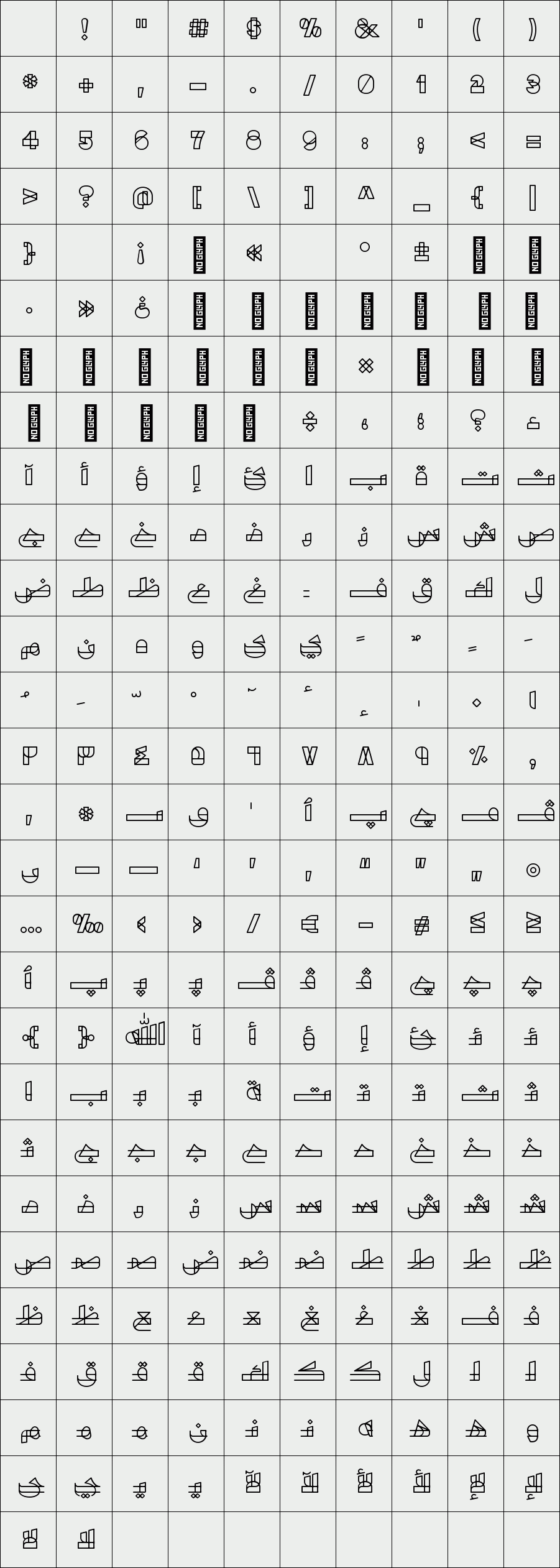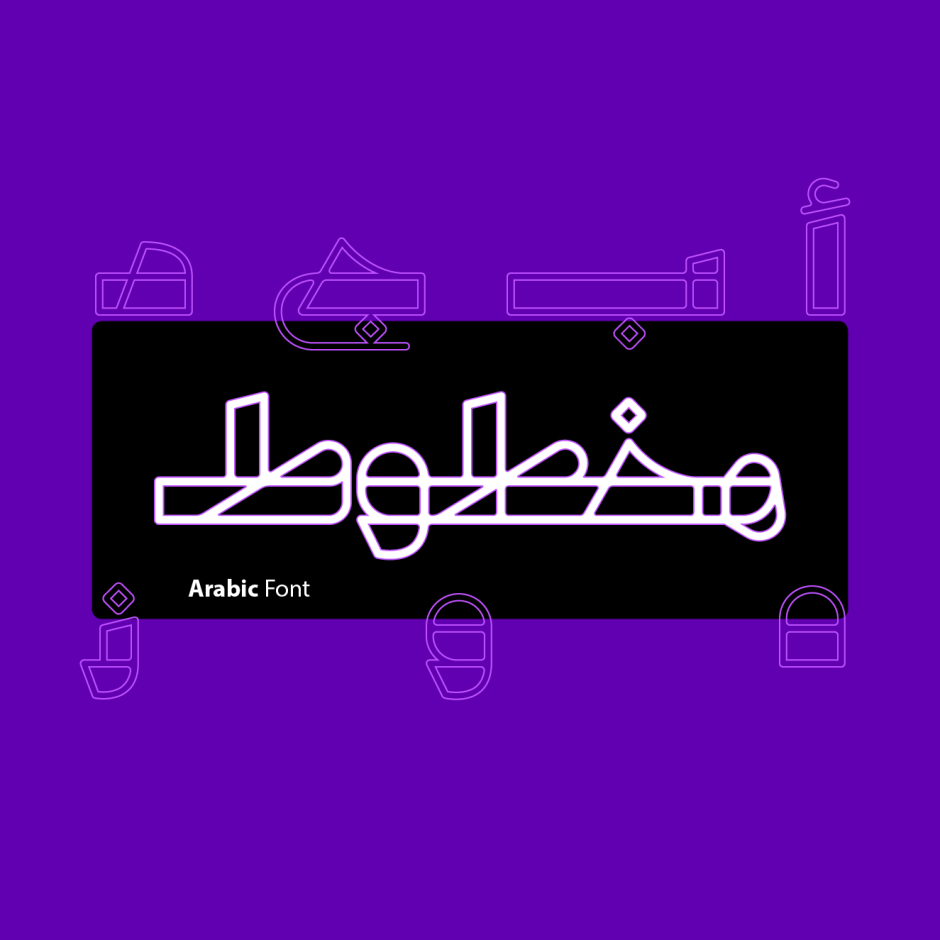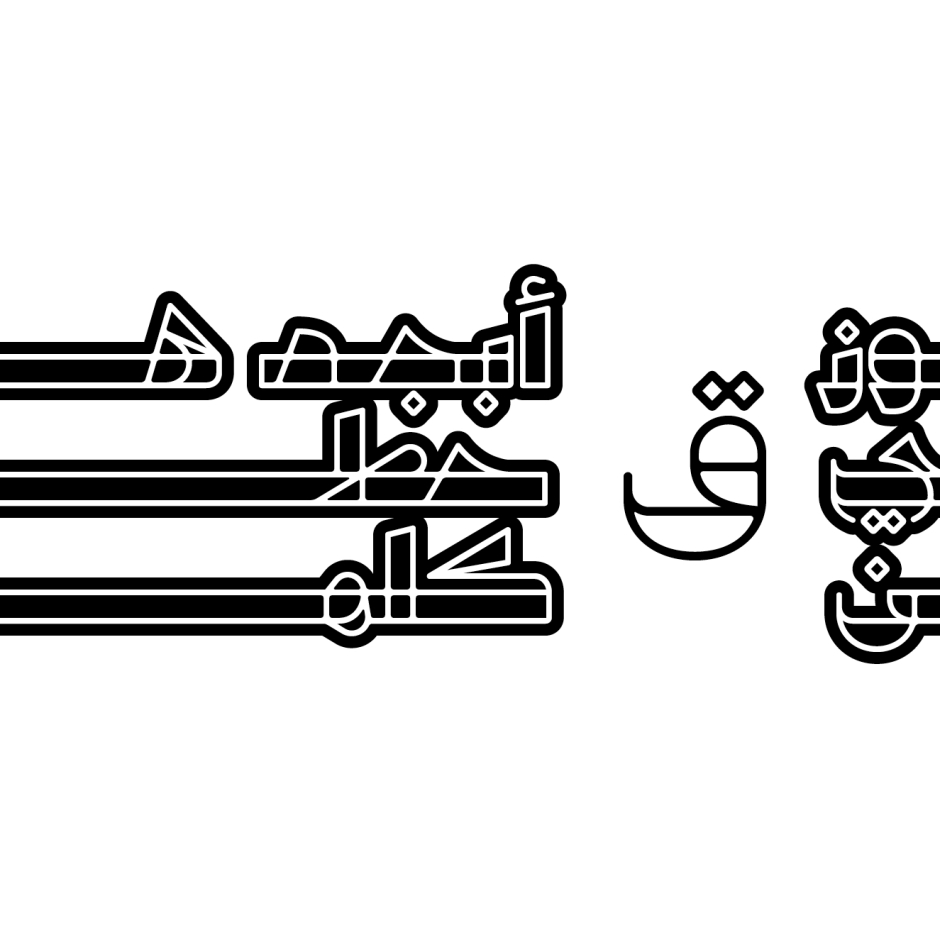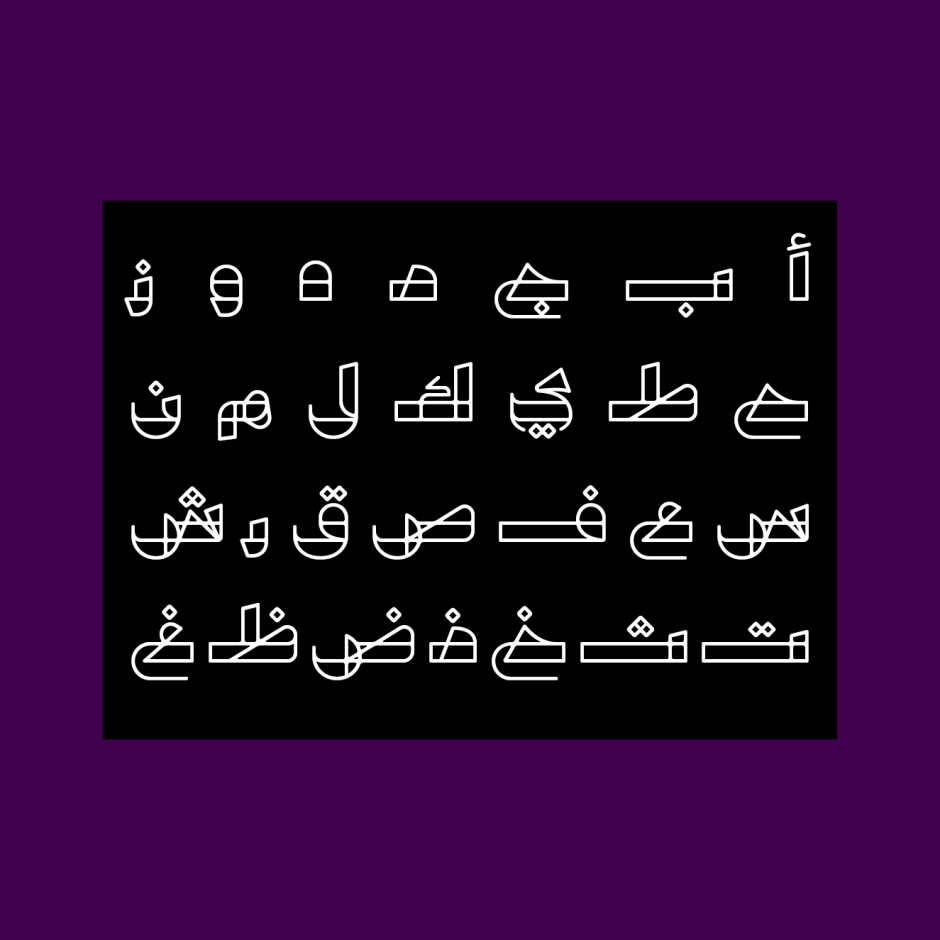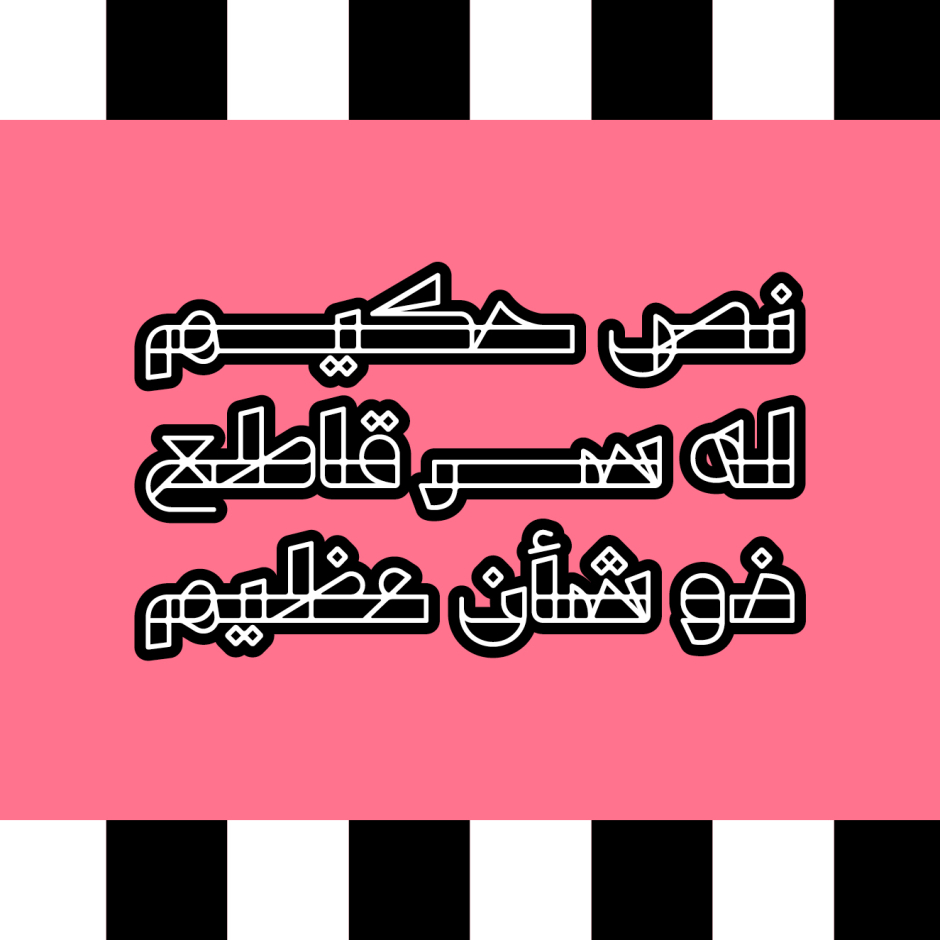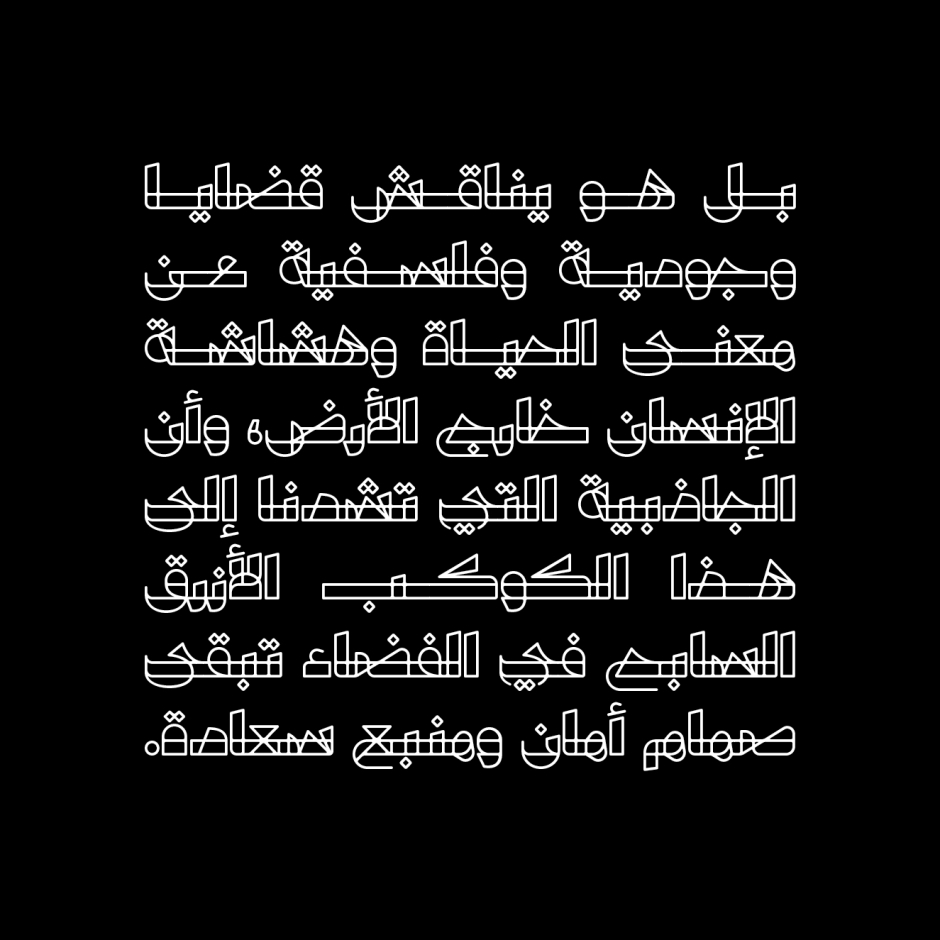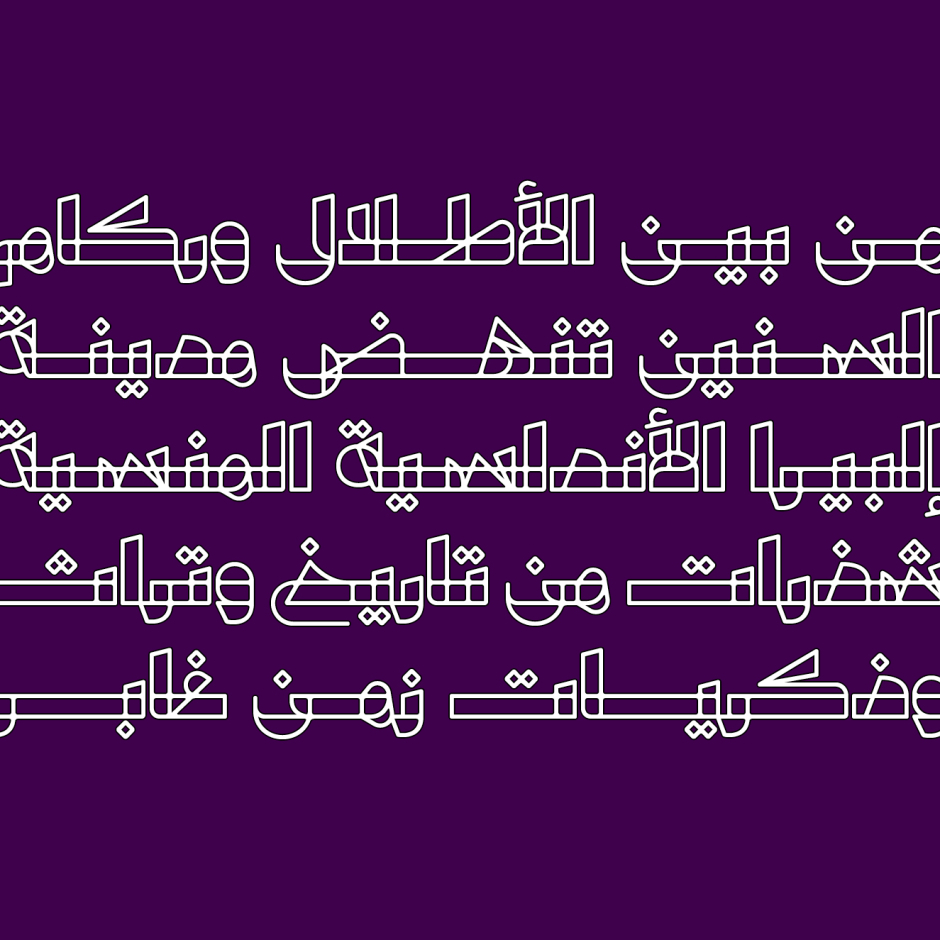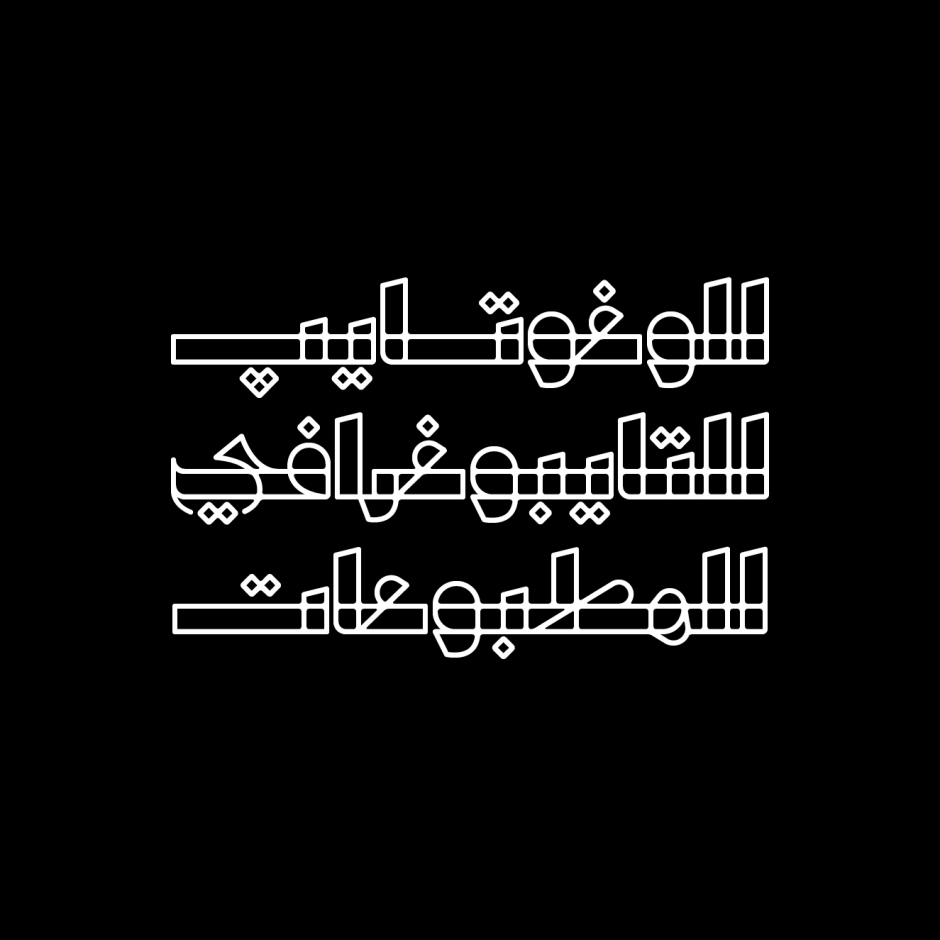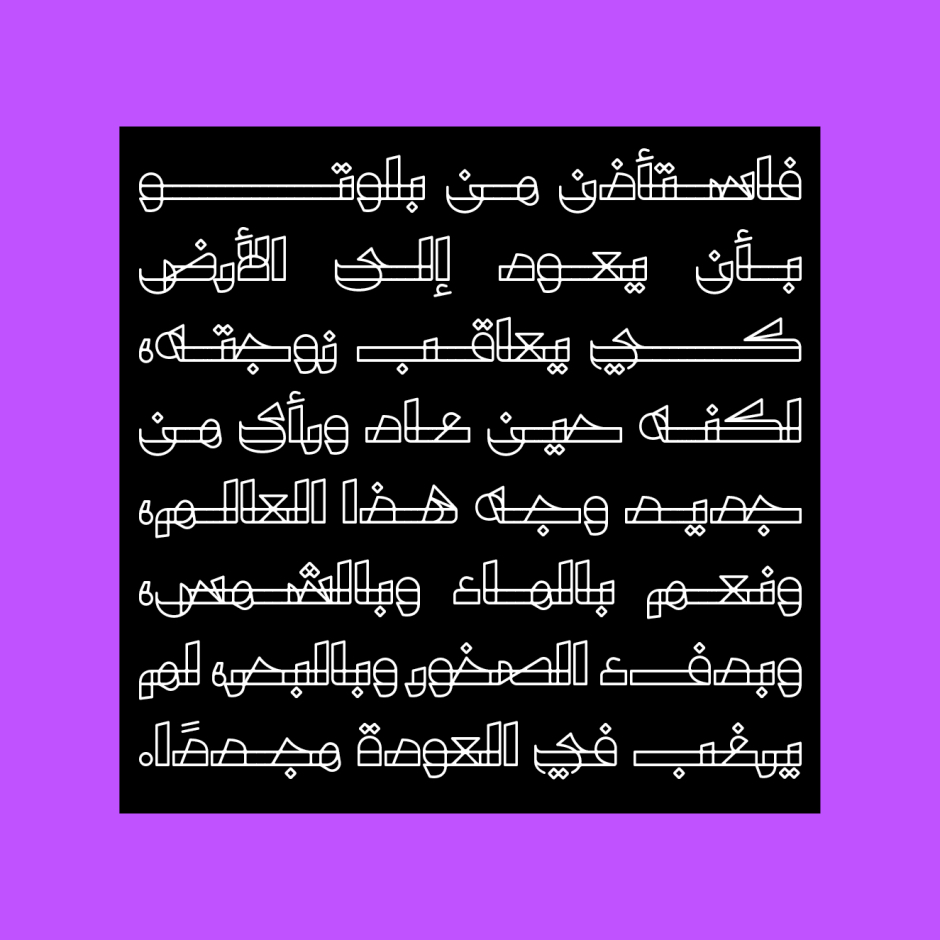
Makhtoot
/ Makhtoot Outlined
Makhtoot (the Arabic word for 'Handwritten') is an Arabic display font that features a hollow-simplified letterform design. The font is suitable for contemporary logotyopes, web and advertising design. Makhtoot supports Windows, Mac and mobile applications.